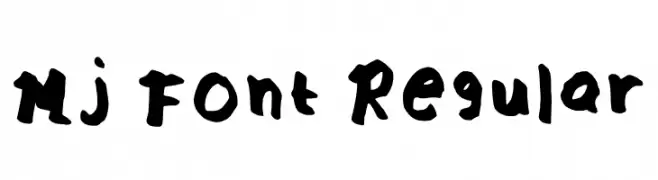
( Fonts by baybilson )
A cursive, handwritten font with a casual and elegant style.
( Fonts by Sayed Musnazi )
A flowing, cursive script font with elegant, interconnected characters.
( Fonts by InspiraType )
A playful and dynamic handwritten font with bold, expressive strokes.
( Fonts by MJType )
A playful, casual handwritten font with smooth, flowing lines.
( Fonts by Regulerstudio )
A bold, playful handwritten font with a casual and friendly style.
( Fonts by JM Dulay )
A bold, playful handwritten font with an artistic, irregular style.
( Fonts by Itzn4yy )
A playful, informal handwritten font with rounded, consistent strokes.
( Fonts by Mariyana )
A dynamic, cursive script font with elegant, flowing strokes.
( Fonts by Etik Fatimah )
A playful, handwritten script font with elegant loops and smooth curves.
( Fonts by Maulana Creative )
A fluid and elegant script font with interconnected, graceful strokes.